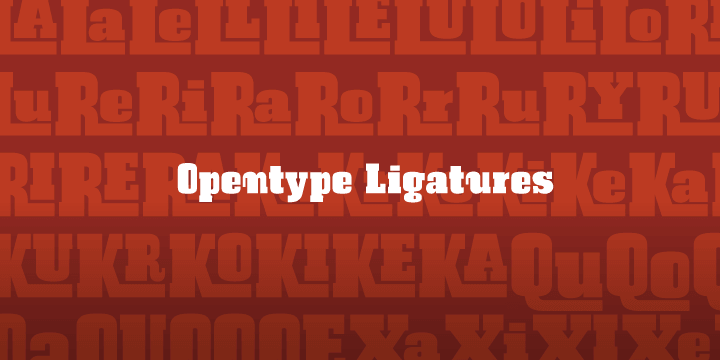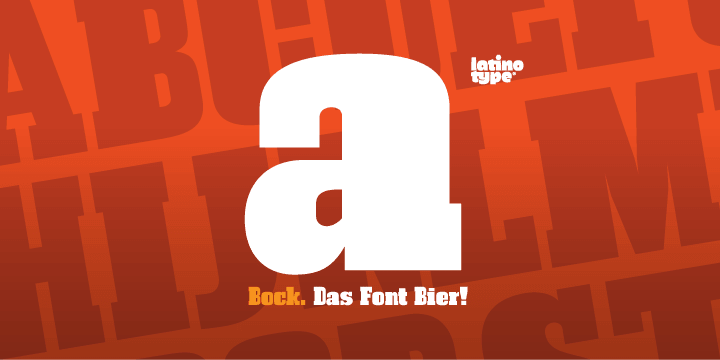
Bock is a western font family. This typeface has two styles and was published by Latinotype.
Is a recreacional typography. Created from experimentation of the Slab Serif style with asymmetric lines. Bock is compact and stable, although having the quality of breaking the typographic rythm, to benefit its use in short words as logotypes and lowering of text in editorials and publicity. The Fat variable was devised as an extension of the Bock concept, deleting the inner and outer space that surrounds a letter, creating a font with much weight and attitude.